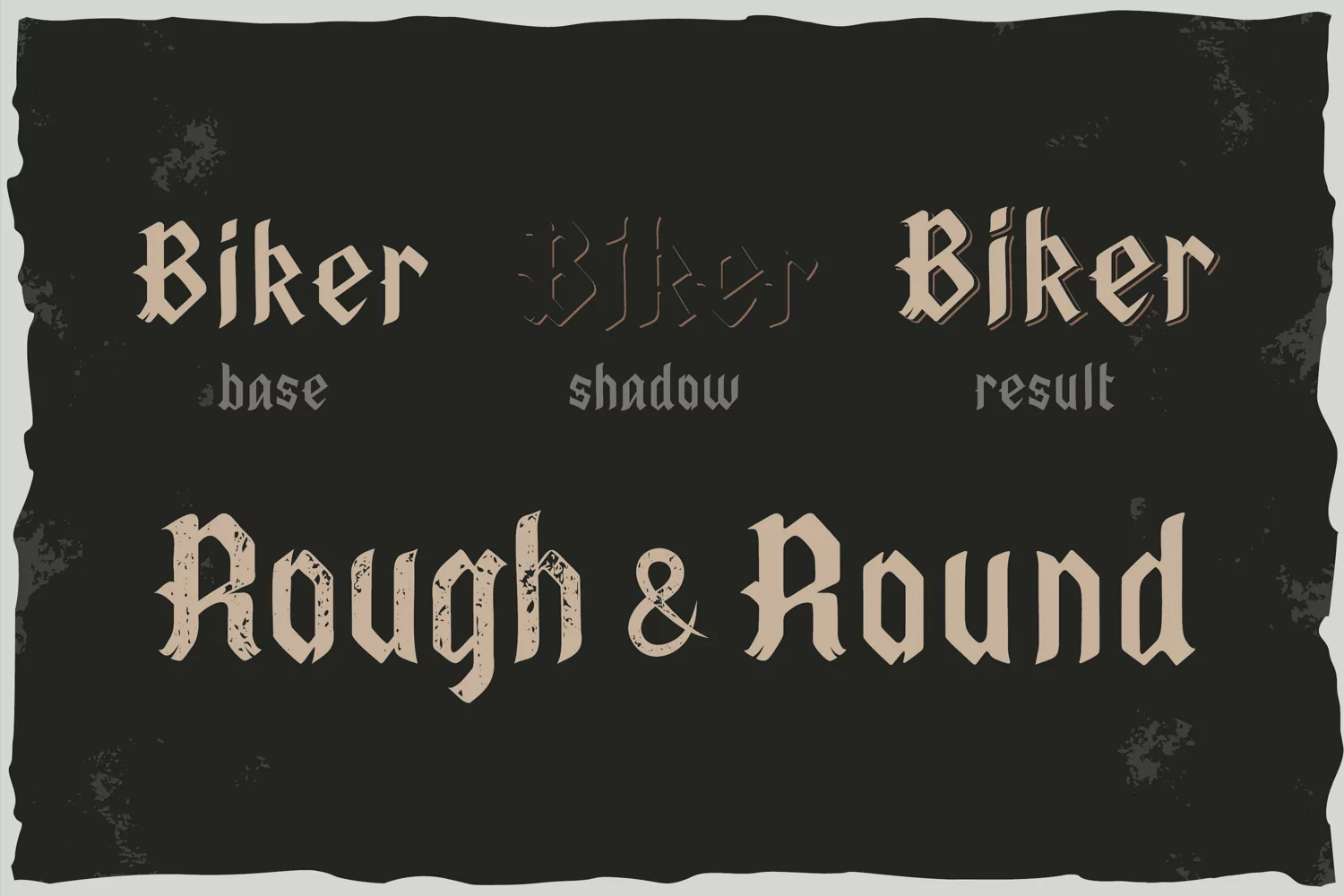
Old Biker - Gothic Style Multi-layer Vintage Font
Old Biker is a multilayer vintage typeface. This font is inspired by Gothic, biker and rock culture. Old Biker comes with 5 different font styles and also contains stylistic alternatives for uppercase and lowercase letters. As an added bonus, Old Biker also includes 8 designs for printing on T-shirts. With so much going on, Old Biker is a great font for various projects!